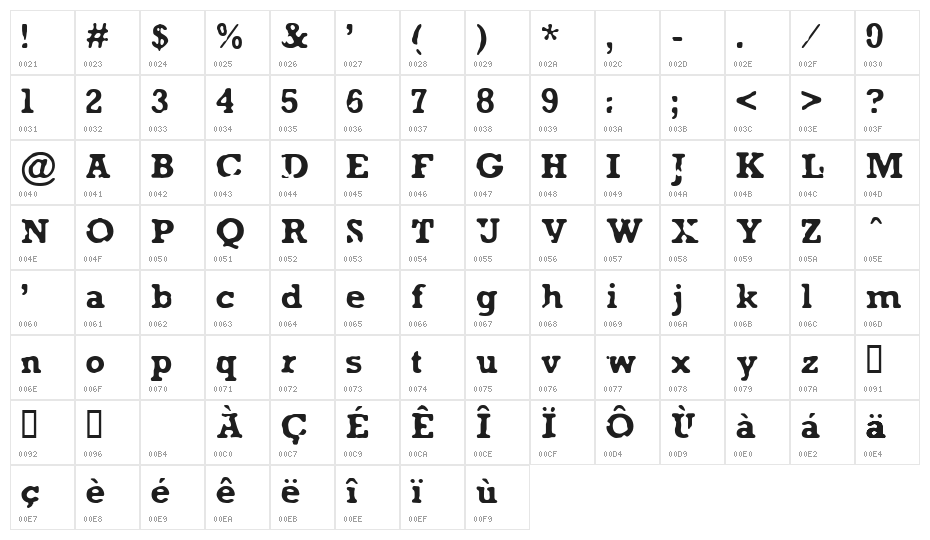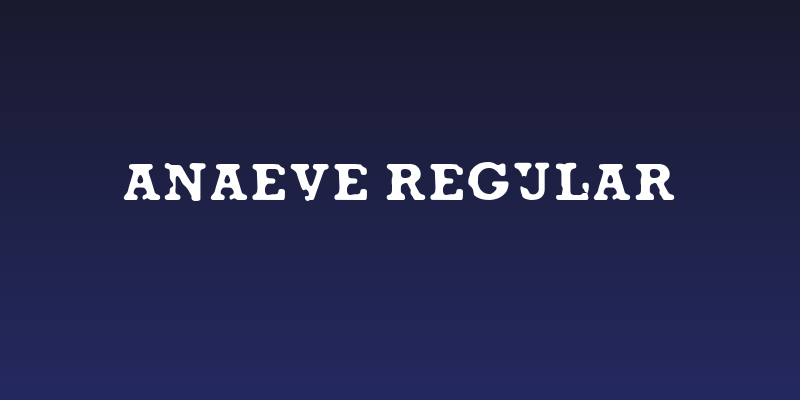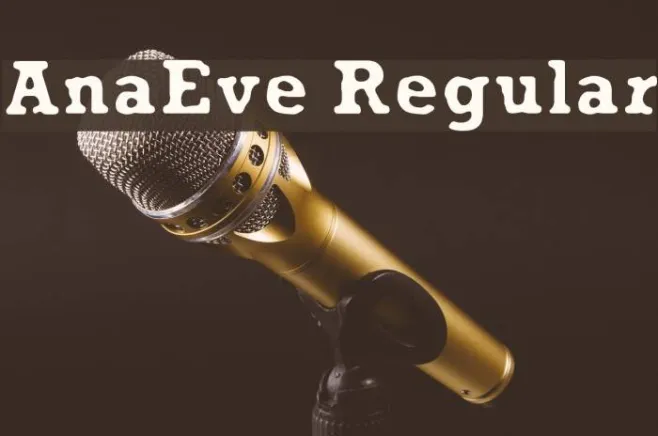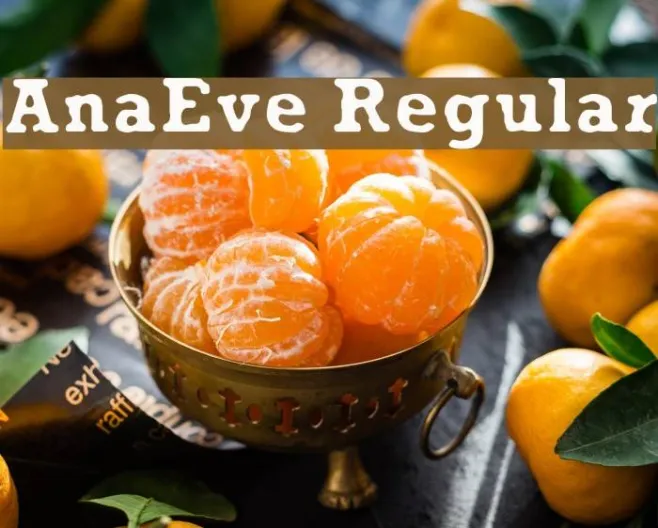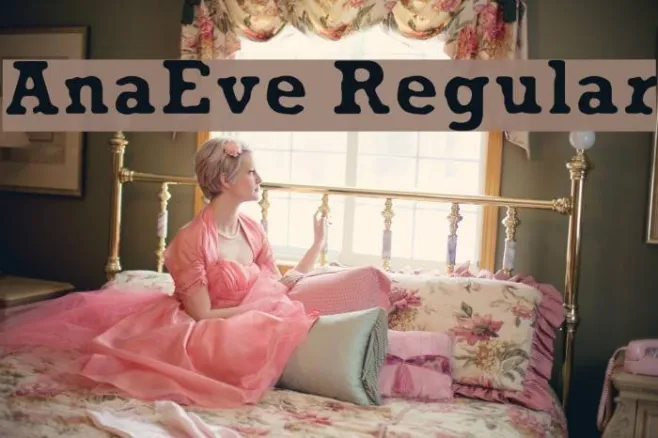
AnaEve Regular Font
AnaEve Regular Description
This font features a bold and playful design with a distinctive, slightly irregular stroke pattern that gives it a handcrafted feel. The characters are robust and have a strong presence, making them ideal for attention-grabbing headlines or creative projects. The uppercase and lowercase letters maintain a consistent style, with rounded edges and a slight vintage flair. The numerals are clear and bold, ensuring readability. Special characters are well-integrated, maintaining the font's unique style. Overall, this font combines a sense of fun with a touch of nostalgia, making it versatile for various design needs.
| Proposed Projects | Ideal for posters, branding, packaging, and creative headlines. |